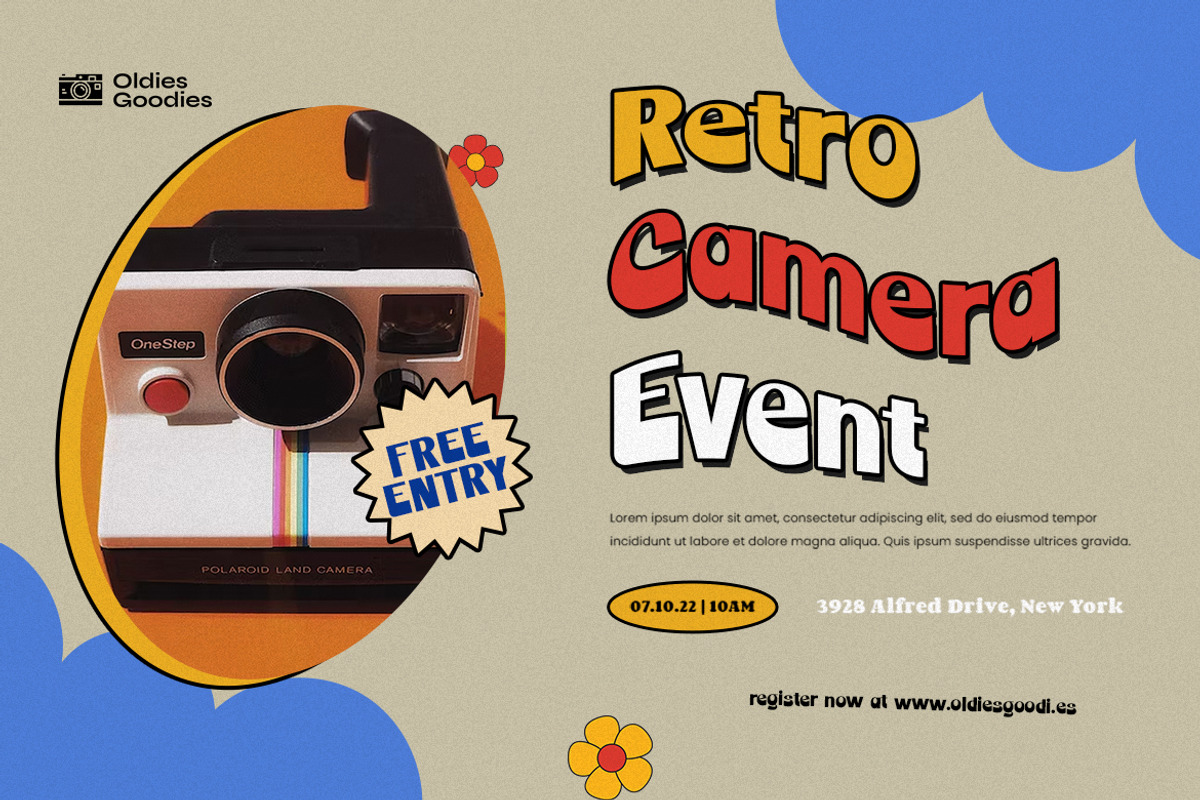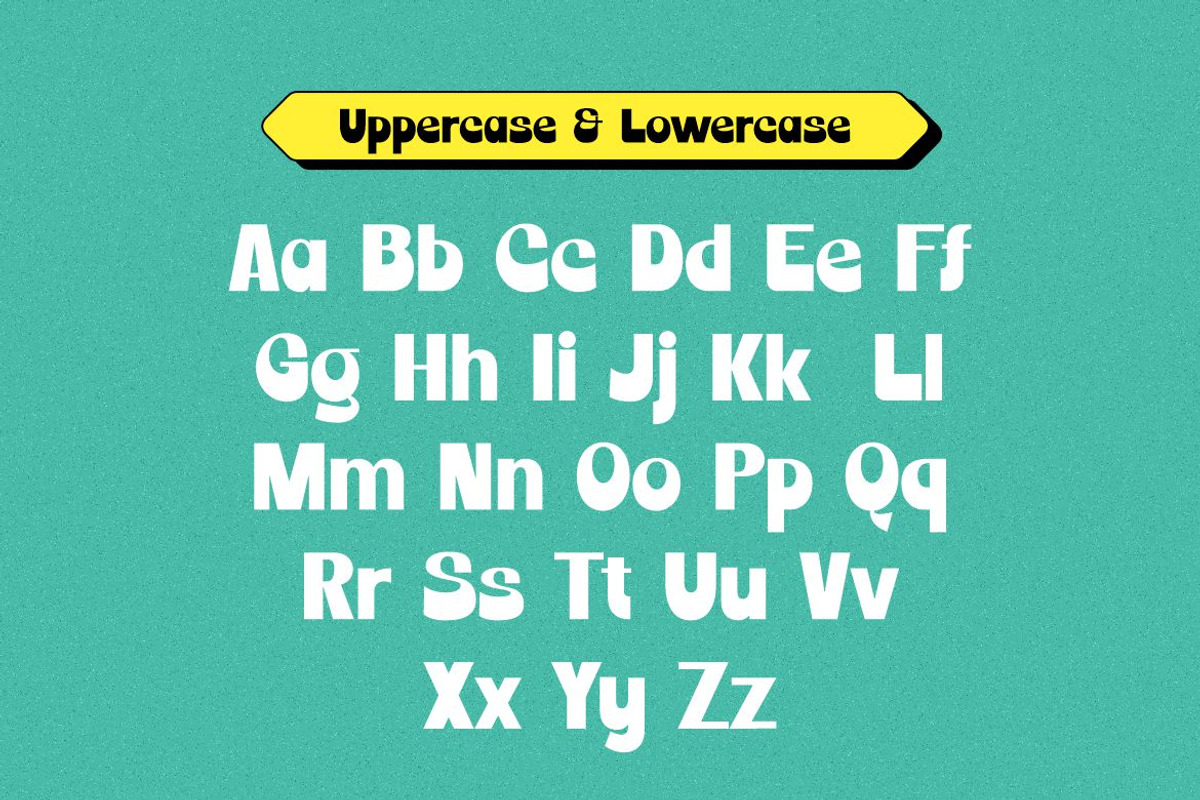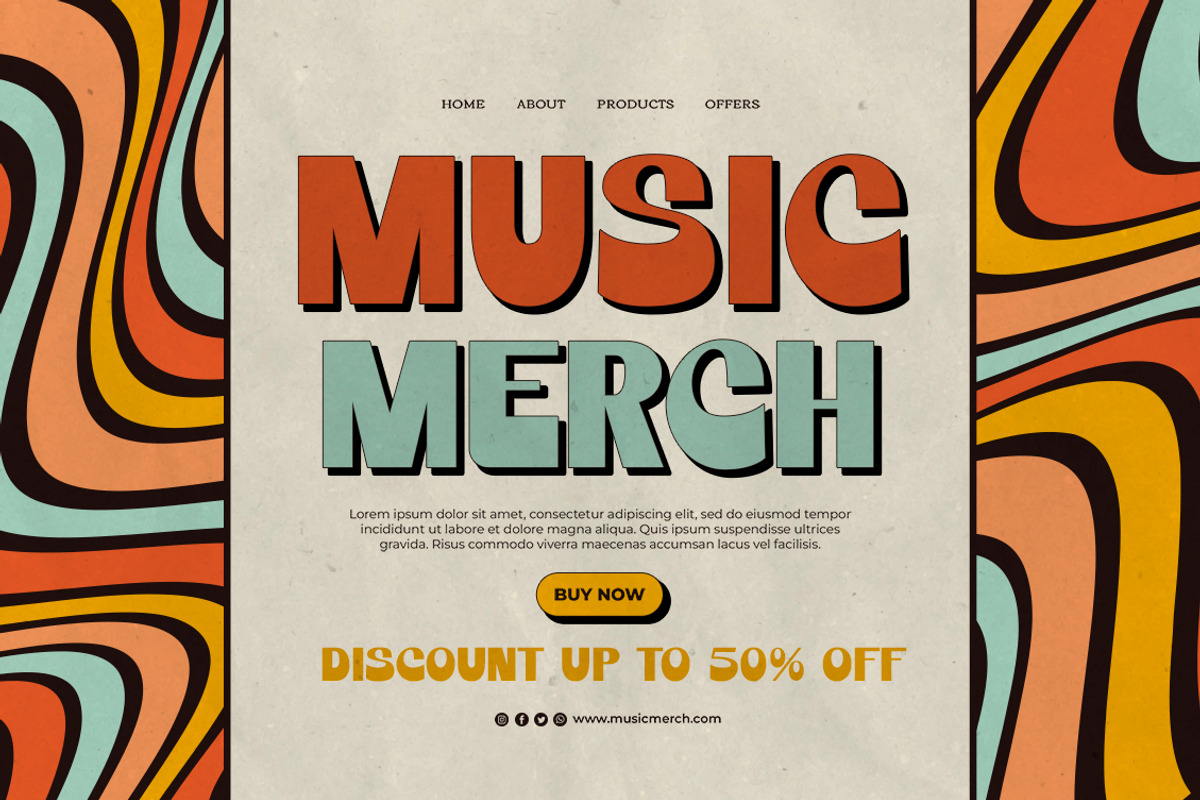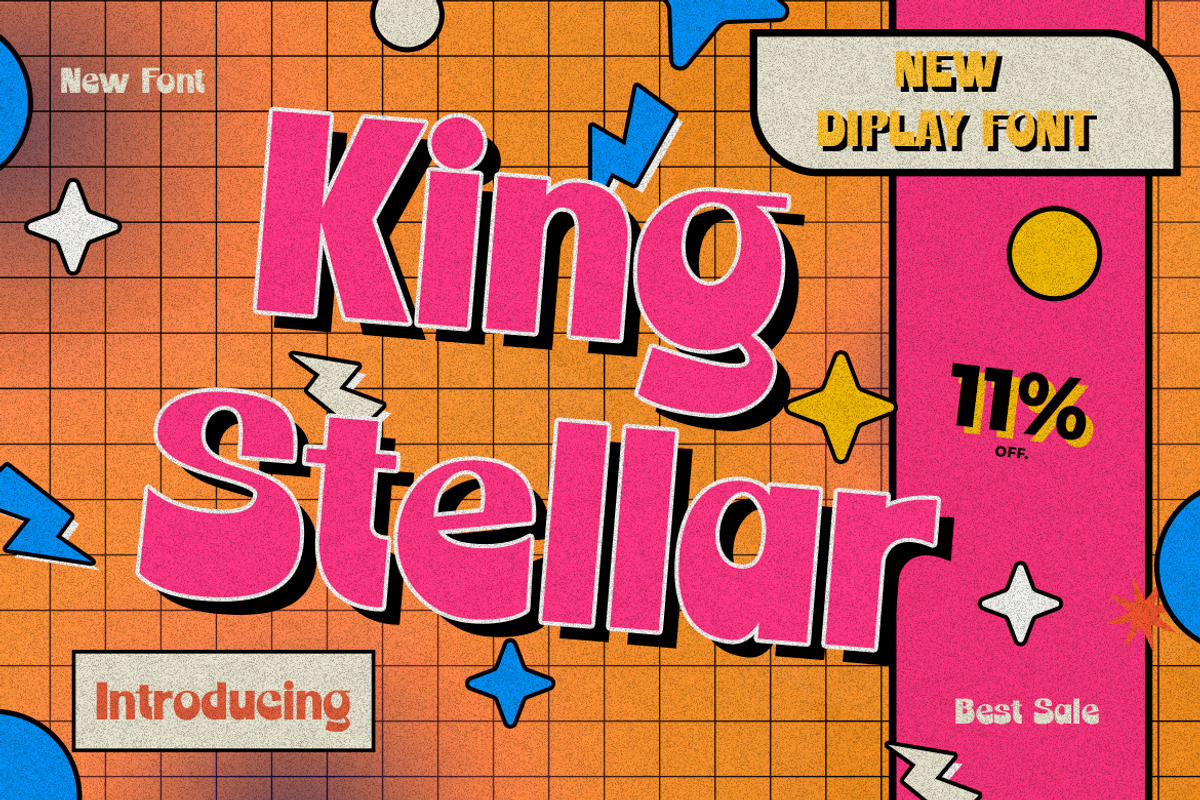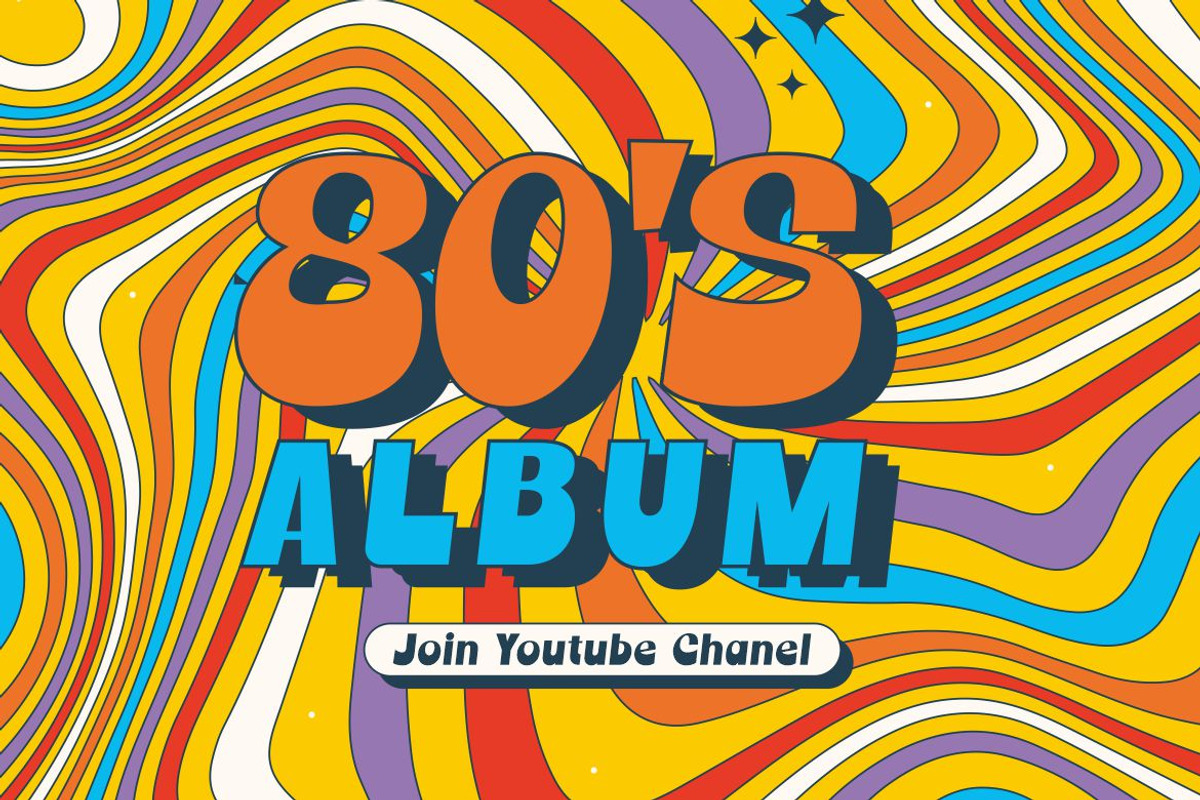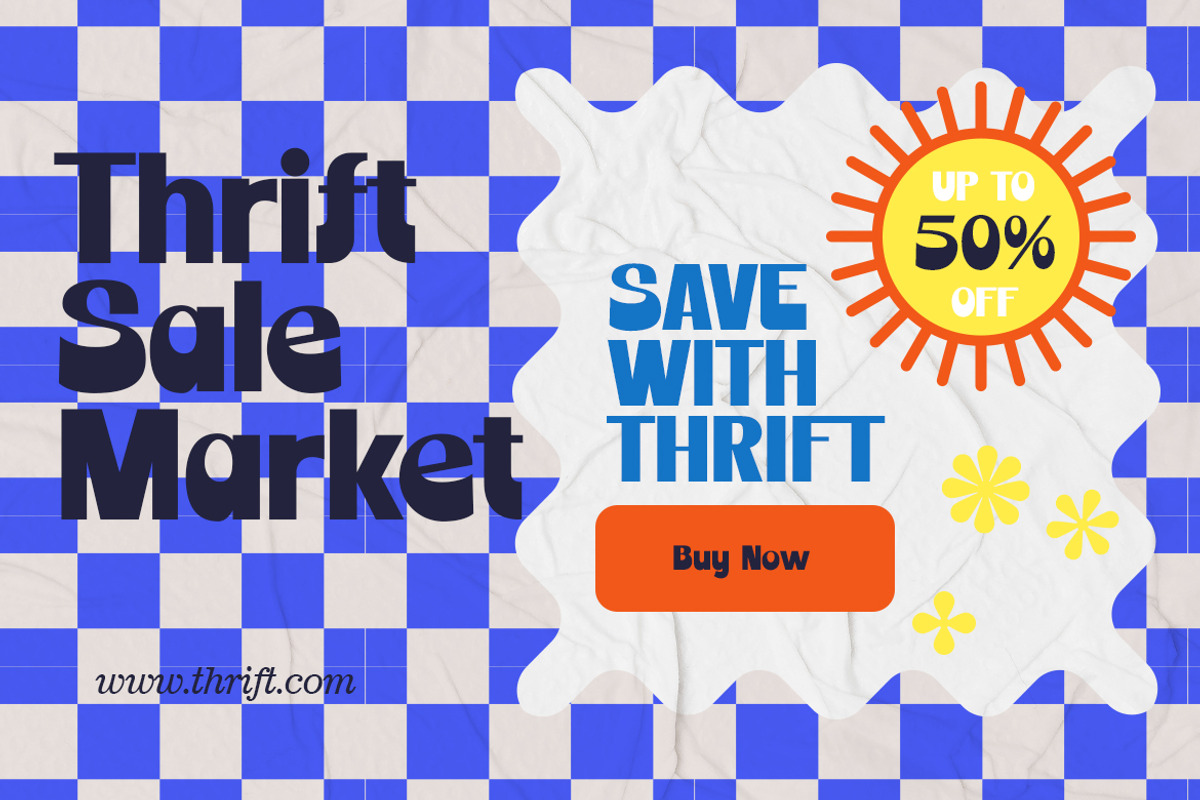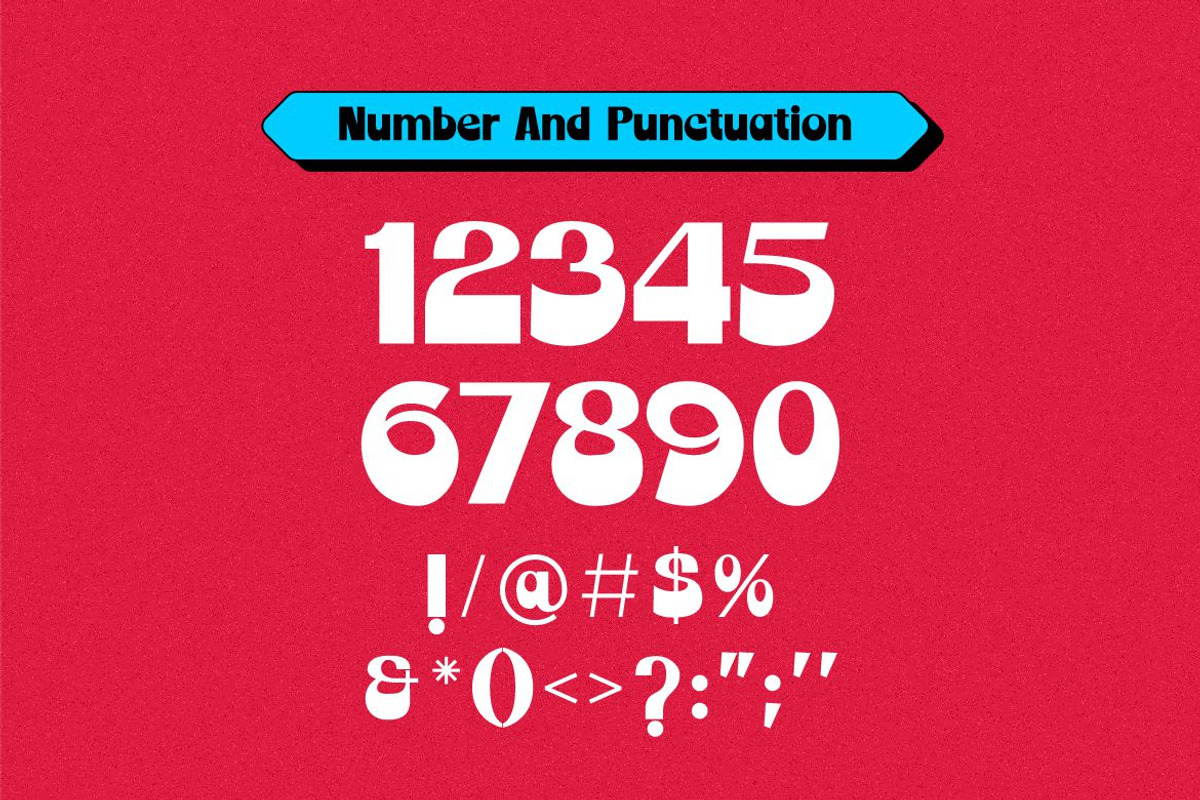
King Stellar
King Stellar Inspired by the 90's playful cartoon & comic books. This playful font comes in six widths; condensed, semi condensed, normal, semi expanded, expanded and extra expanded. This font can be used for modern and vintage designs, also can be easily paired with some graphic elements (Illustration, Photography) this font perfect for, Logotype, Branding, Title, and Packaging.